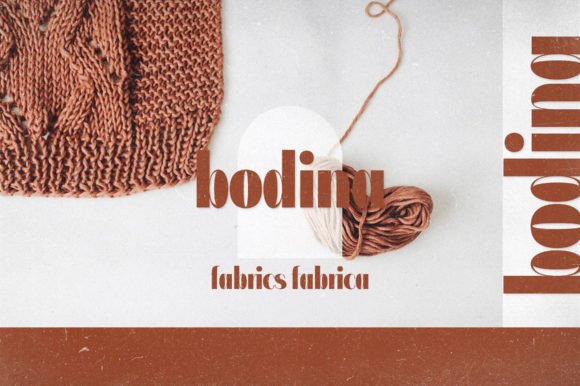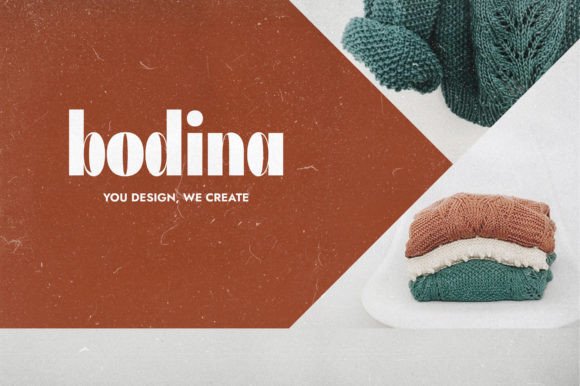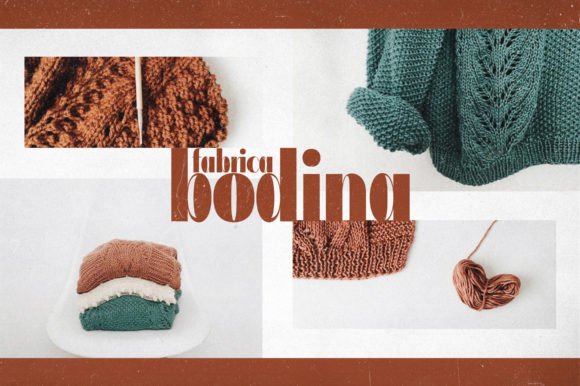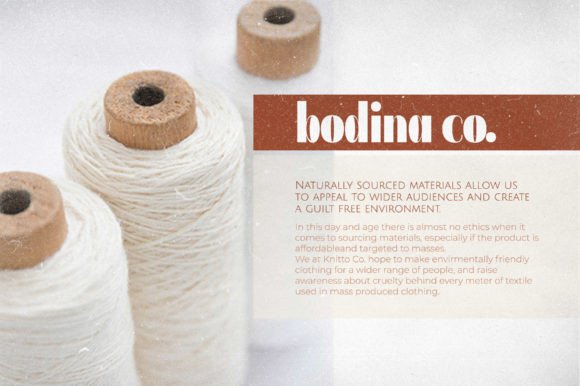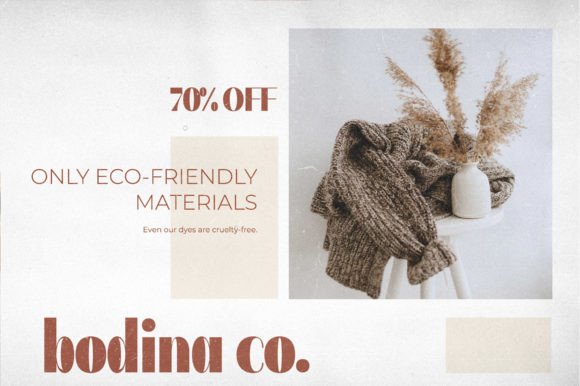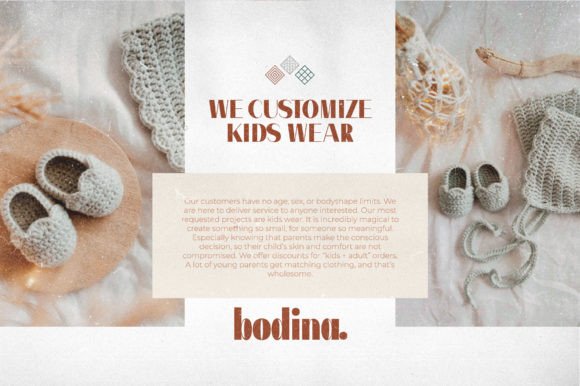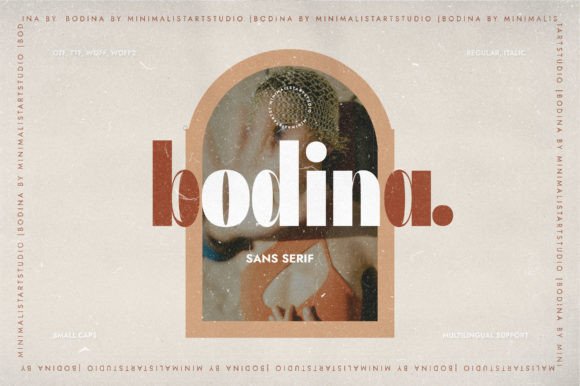
Bodina Font: Elevate Your Designs with Elegance and Sophistication
In the world of typography, fonts play a crucial role in conveying the tone and personality of a design. For designers and crafters seeking to add a touch of elegance and sophistication to their creations, Bodina Font is an excellent choice. This classy and elegant sans-serif typeface has been gaining popularity for its versatility and aesthetic appeal, making it an ideal selection for various design projects.
What Makes Bodina Font Stand Out?
Bodina Font boasts a unique blend of casualness and elegance, setting it apart from other sans-serif typefaces. Its clean lines, subtle curves, and balanced proportions create a visually appealing effect that can instantly elevate any design. Whether you’re working on fashion posters, cosmetics packaging design, perfume packaging, brochures, social posts, or stories, Bodina Font can add a significant value to your creations.
Perfect for Fashion and Beauty Designs
Fashion and beauty brands often require typography that exudes luxury, sophistication, and glamour. Bodina Font fits the bill perfectly, thanks to its refined and polished appearance. Its elegant touch can add a high-end feel to your designs, making it an excellent choice for:
- Fashion posters and flyers
- Cosmetics packaging design
- Perfume packaging and branding
- Luxury beauty product labels
Versatility Beyond Fashion and Beauty
While Bodina Font excels in fashion and beauty designs, its versatility extends beyond these industries. Its clean and elegant appearance makes it suitable for a wide range of applications, including:
- Brochures and catalogs
- Social media posts and stories
- Website headers and footers
Why Choose Bodina Font?
With so many fonts available, why should you choose Bodina Font for your designs? Here are a few compelling reasons:
- Elegance and sophistication: Bodina Font’s refined appearance can instantly elevate your designs and give them a high-end feel.
- Versatility: This font is suitable for various design projects, from fashion and beauty to corporate and digital designs.
- Readability: Bodina Font’s clean lines and balanced proportions ensure excellent readability, even at small font sizes.
- Uniqueness: Bodina Font’s distinctive style sets it apart from more traditional sans-serif typefaces, making your designs stand out.
Tips for Using Bodina Font Effectively
To get the most out of Bodina Font, consider the following tips:
- Pair it with contrasting fonts: Combine Bodina Font with serif or script fonts to create visual interest and hierarchy.
- Experiment with font sizes: Use Bodina Font in various sizes to create emphasis and add depth to your designs.
- Pay attention to color: Choose colors that complement Bodina Font’s elegant appearance, such as neutral tones or rich jewel tones.
Bodina Font is a versatile and elegant sans-serif typeface that can elevate any design project. Its unique blend of casualness and sophistication makes it an excellent choice for fashion and beauty designs, as well as a wide range of other applications. With its excellent readability, distinctive style, and versatility, Bodina Font is an excellent addition to any designer’s toolkit.